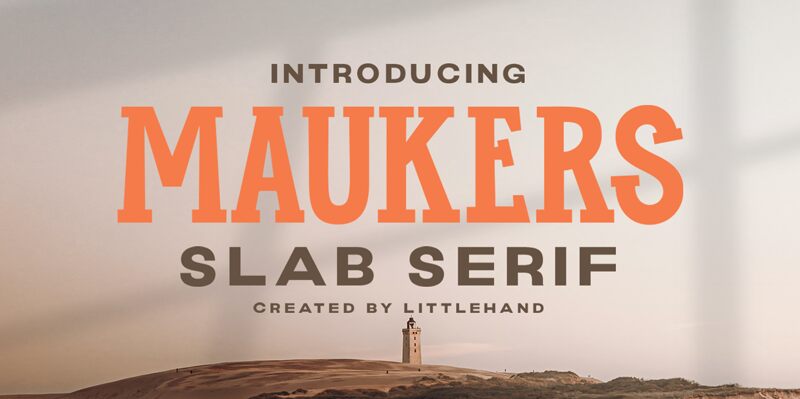
MaukersSerif
Maukers Serif is a slab serif font by Letterhend Studio that boasts a unique semi-condensed width. Its bold and sturdy appearance makes it perfect for headlines, logos, and packaging designs. Maukers Serif's slightly curved edges and sharp serifs give it a classic yet modern look, making it suitable for branding projects across various industries such as fashion, food, and lifestyle. Its legibility also makes it an excellent choice for editorial design in magazines or newspapers. This versatile typeface provides endless opportunities to elevate your creative projects to the next level!